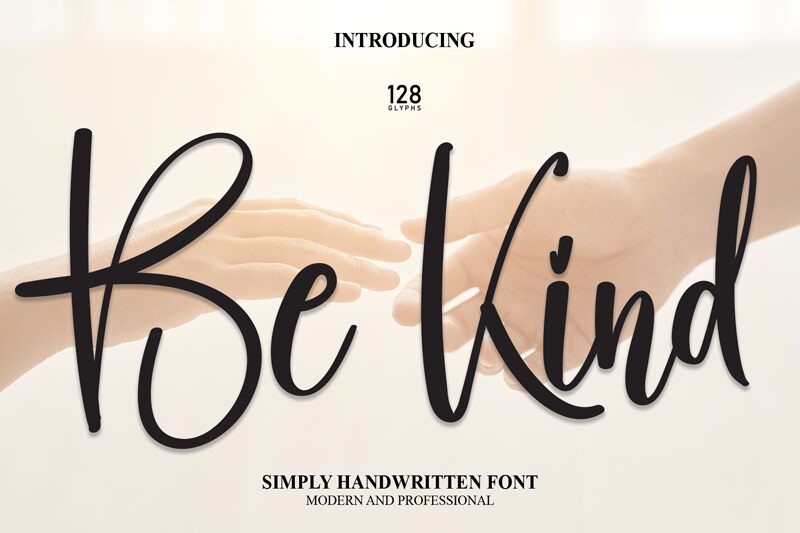
Be Kind
Be Kind is a charming semi-light handwritten font meticulously crafted by Scratchones. With its fluid and expressive letterforms, this font exudes a personal touch that mimics the nuances of human handwriting. The gentle curves and slight slant give Be Kind an inviting and approachable vibe, perfect for designs intended to convey warmth and friendliness.
The aesthetic appeal of Be Kind lies in its balance between legibility and artistic flair. Its semi-light weight strikes a delicate chord, ensuring readability while maintaining an airy, unburdened look. This makes it an excellent choice for branding projects, inspirational quotes, greeting cards, and any creative endeavor that demands a touch of humanity.
Versatile in nature, Be Kind's handwritten style adds authenticity to personalized messages and lends an intimate feel to digital communications. Whether used in print or on screen, this font is poised to elevate your project with its unique character and stylish appeal.